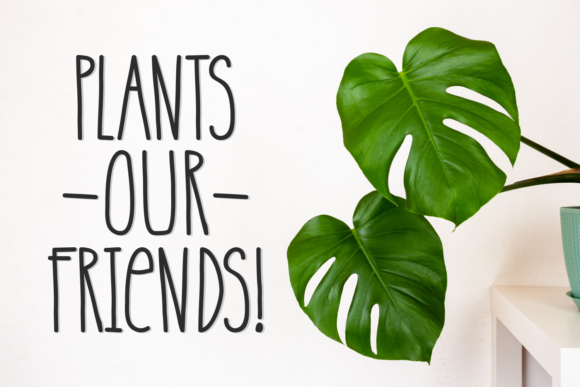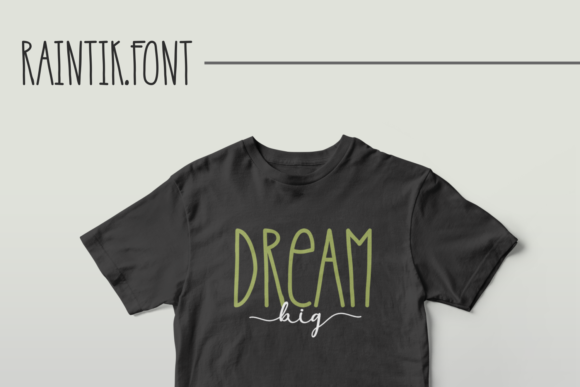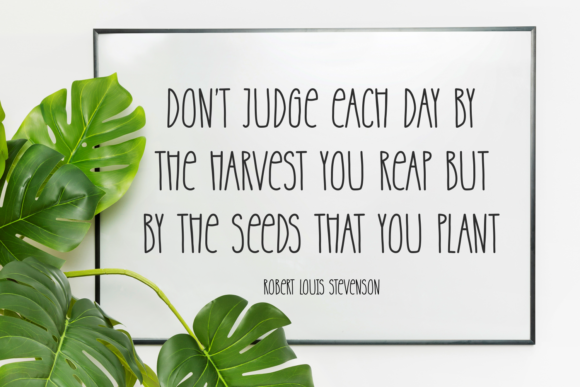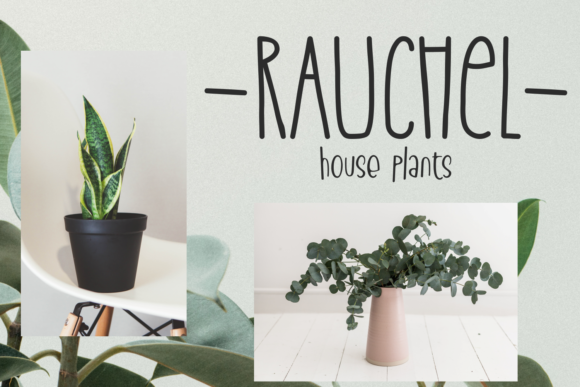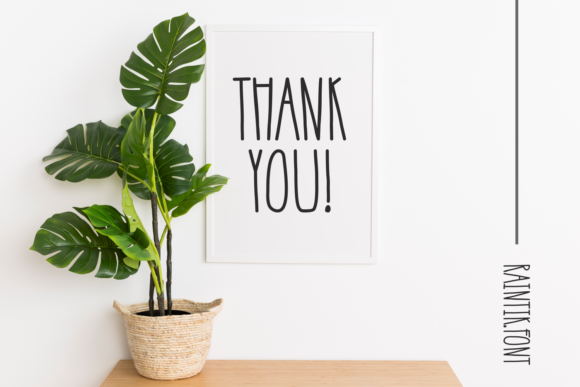
Introduction to Raintik Font
Raintik is a unique and interesting display font.
A little bit quirky, this font is a great choice for a wide variety of contexts .
Key Features of Raintik Font